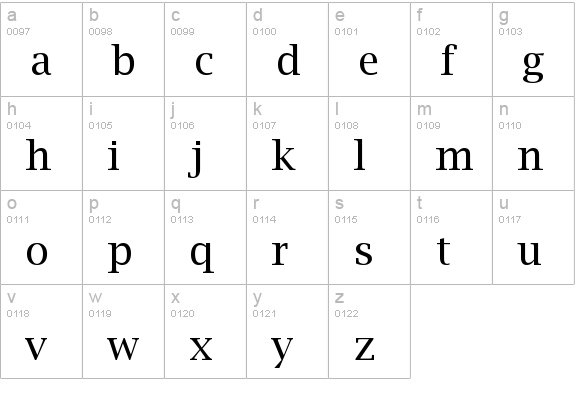
Lucerne font is a stunning display typeface that effortlessly combines elegance with modernity. With its sleek lines and sophisticated curves, Lucerne exudes a sense of timeless beauty that is perfect for a wide range of design projects. This versatile font is ideal for creating eye-catching headlines, branding materials, logos, and more. What makes Lucerne font even more appealing is that it is completely free to download at FontsMarket.com. This means that you can easily access this high-quality font without any cost, making it a valuable addition to your design toolkit. Whether you're a seasoned designer looking to refresh your font collection or a newcomer eager to explore new typographic styles, Lucerne font is a must-have resource that offers both style and accessibility. Download Lucerne font today and elevate your designs with its captivating charm and sophistication.